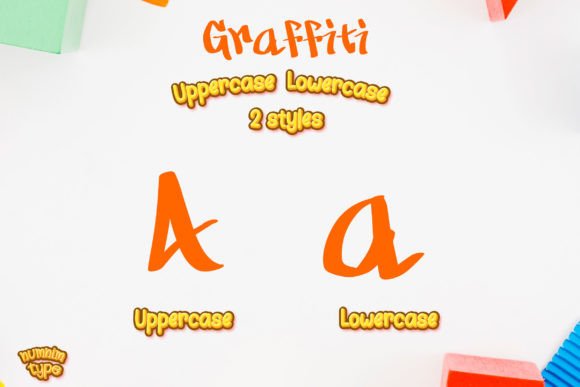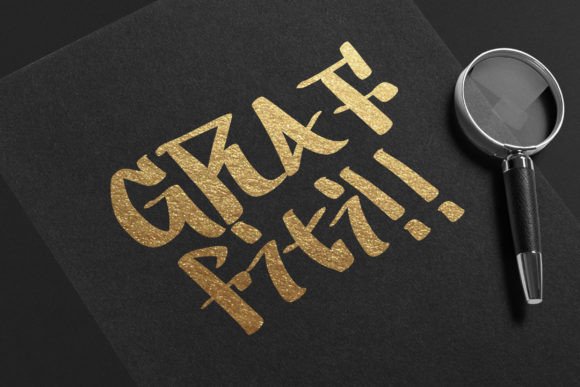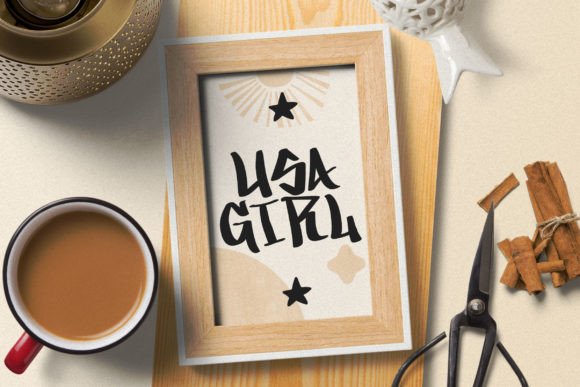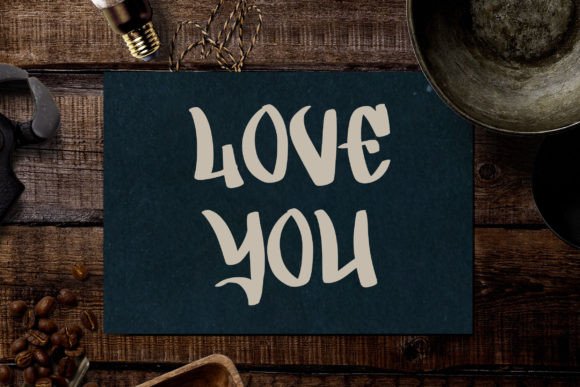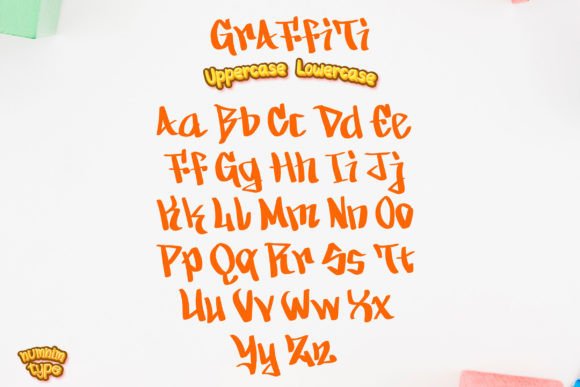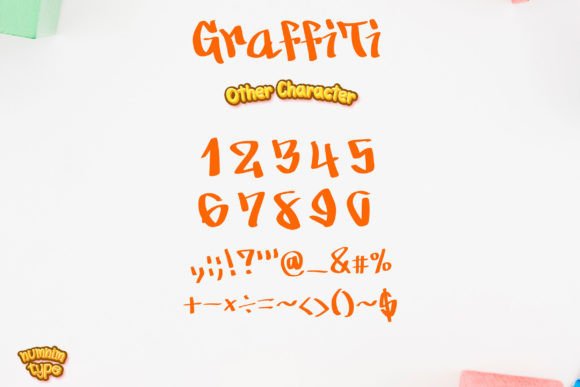
Introduction to Graffiti Font
You’re scrolling through social media, and a stunning street art design catches your eye. The vibrant colors, the bold shapes, and the playful characters all come together to create an eye-catching visual masterpiece. As a designer, you can’t help but feel a spark of inspiration – you want to create something similar for your next project.
That’s where the Graffiti Font comes in – a cool and uniquely crafted Street font that’s perfect for adding a touch of personality to your designs. With its fun and playful characters, this font is a valuable design resource for any creative project. Whether you’re working on a sticker, a mug, or a t-shirt, the Graffiti Font is sure to add a unique touch to your design.
- High-quality, unique lettering style ideal for creative projects and designs
- Designed to be versatile and adaptable, making it a great addition to any creative project or design
- Unique characteristics include bold, expressive lines and a vibrant, energetic feel that’s perfect for capturing attention and conveying creativity
I recently stumbled upon the Graffiti Font and was excited to dive in and see what it had to offer. As a designer, I’m always on the lookout for high-quality design resources to elevate my creative projects.
- High-quality font with a unique, graffiti-style aesthetic
The Graffiti Font is perfect for designers looking to add a touch of edginess to their projects. It’s ideal for use in creative fields such as graphic design, advertising, and digital art.
- Limited character set, which may limit its use in longer text-based projects
- May not be suitable for use in formal or corporate design projects
Overall, I’m impressed with the Graffiti Font and would recommend it to designers looking for a unique and high-quality design resource. Just be mindful of its limitations and use it in projects where it will shine.
The Graffiti Font is commonly used in graphic design, street art, and advertising. It’s perfect for creating eye-catching posters, flyers, and social media graphics. You can also use it to add a creative touch to your business cards, brochures, and other marketing materials.
To get the most out of the Graffiti Font, experiment with different font sizes, colors, and styles. You can also combine it with other design elements, such as images and shapes, to create a unique and eye-catching design. Don’t be afraid to try new things and push the limits of what’s possible with this font.